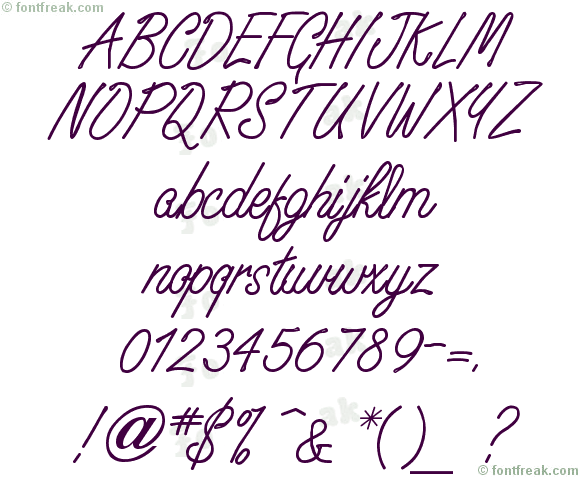
WhisperWrite Medium
Whisper Write by Graphics Art Us is a captivating handwritten font that exudes a personal touch and warmth, making it an ideal choice for various creative projects. This freeware font showcases a medium stroke weight that balances elegance with readability, featuring gentle curves and flowing lines that mimic natural handwriting. The subtle contrast in stroke thickness adds depth and character, while the generous spacing between letters enhances legibility, ensuring that your message is both clear and visually appealing.
The Whisper Write font is perfect for a multitude of applications. Its charming aesthetic makes it an excellent choice for wedding invitations, where the script can evoke romance and intimacy. Additionally, it works beautifully for greeting cards, adding a personal touch that resonates with recipients. For small business owners, Whisper Write can elevate branding efforts, particularly in artisanal or boutique settings, where the handwritten style reflects authenticity. Content creators will also find this font useful for social media graphics, providing a unique flair that captures attention and encourages engagement.
This font appeals to a diverse audience, including graphic designers seeking to add a distinctive element to their projects, small business owners looking for a way to stand out, and content creators aiming to enhance their visual storytelling. The combination of its friendly appearance and versatility makes it a valuable addition to any designer's toolkit.
What truly sets Whisper Write apart is its ability to blend artistic expression with functionality. The font's warm, inviting style effortlessly draws readers in, making it a standout choice for anyone looking to infuse their work with personality. With the Whisper Write font free download, you have the opportunity to elevate your designs and make a memorable impression in any medium.